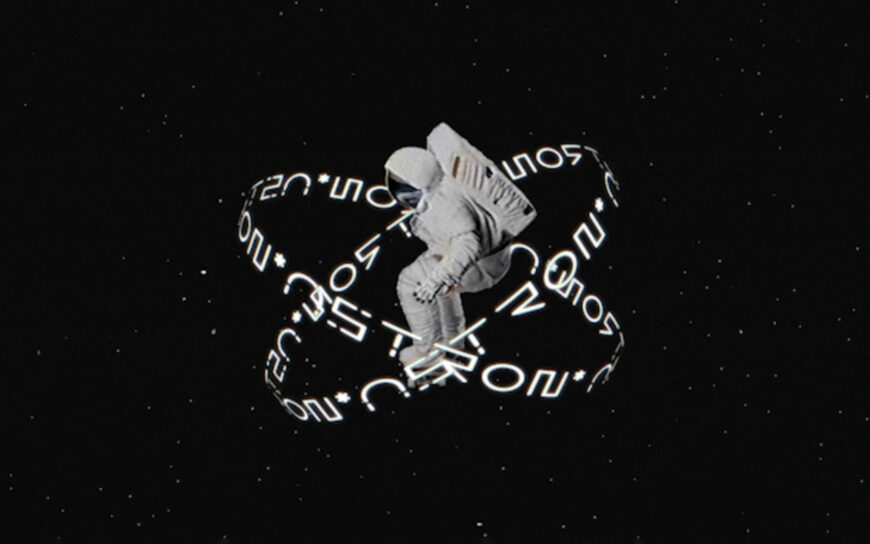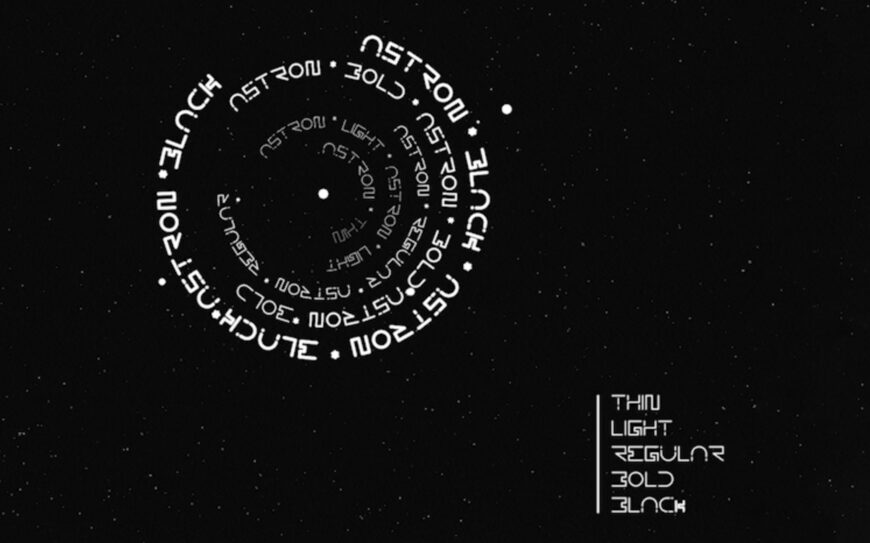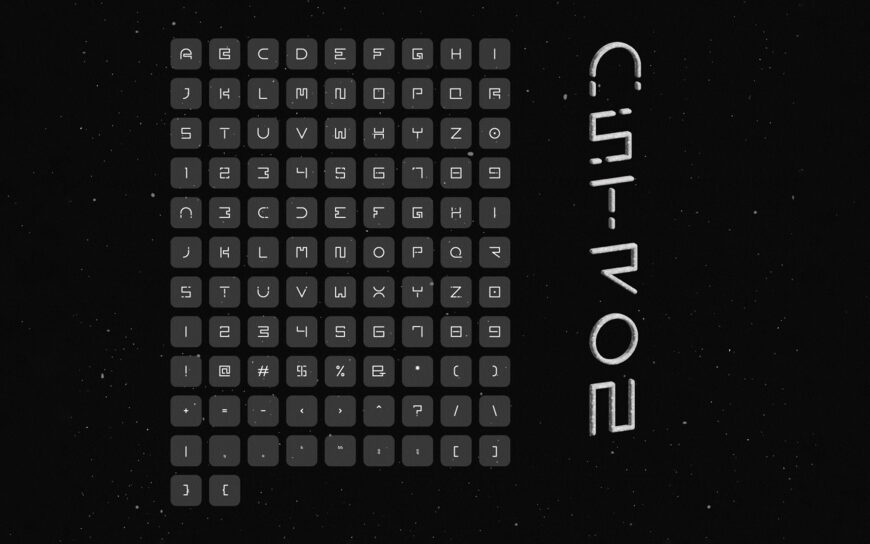
Astron is a futuristic, sci-fi-inspired display font designed for bold space-age aesthetics. Featuring geometric, digital-style letterforms with segmented lines and distinct rounded arch structures, it evokes a high-tech cosmic feel.
The family includes five versatile weights: Thin, Light, Regular, Bold, and Black. Accompanied by full uppercase, lowercase, numerical, and punctuation character sets, it is perfect for headlines, poster art, tech branding, and sci-fi logo designs.